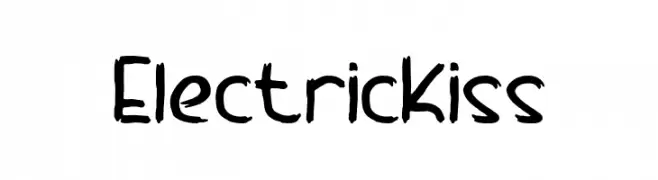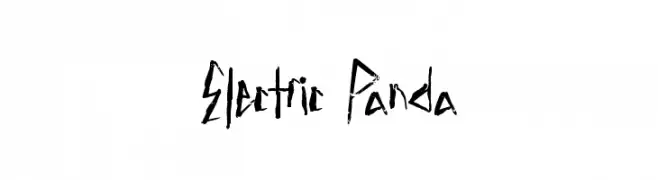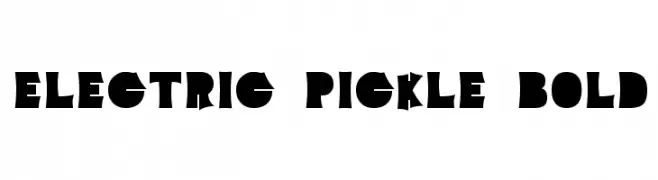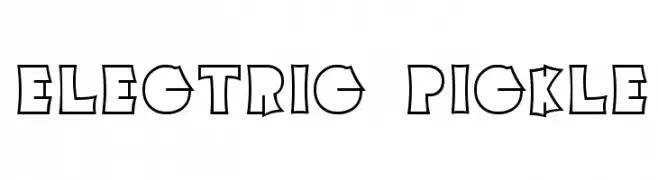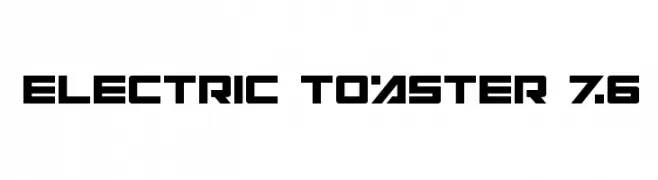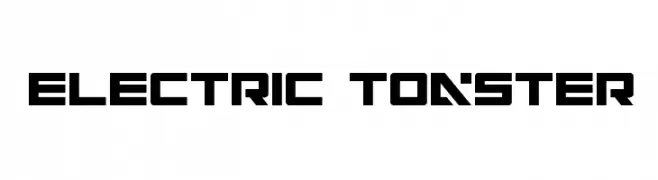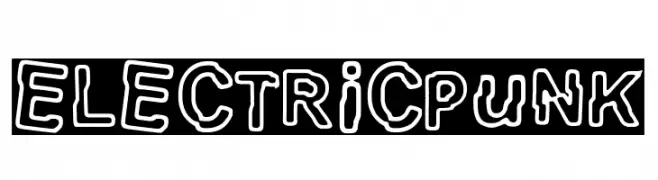
A playful and dynamic font with jagged, electric outlines.
A bold, electrifying font with jagged outlines and dynamic energy.
A bold, energetic handwritten font with playful, uneven strokes.
A bold, expressive handwritten font with thick, uneven strokes and a playful style.
An edgy, grungy font with jagged, irregular strokes and a rebellious vibe.
A bold, playful font with jagged outlines and dynamic character shapes.
A bold, edgy font with sharp angles and thick strokes, perfect for standout designs.
A bold, playful font with a hand-drawn, outlined style.